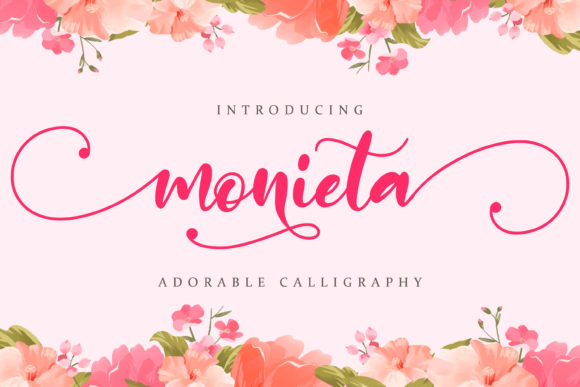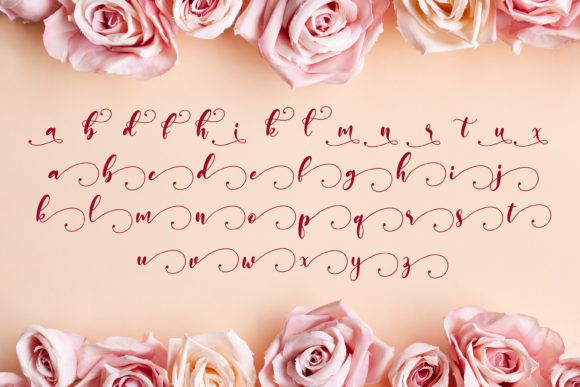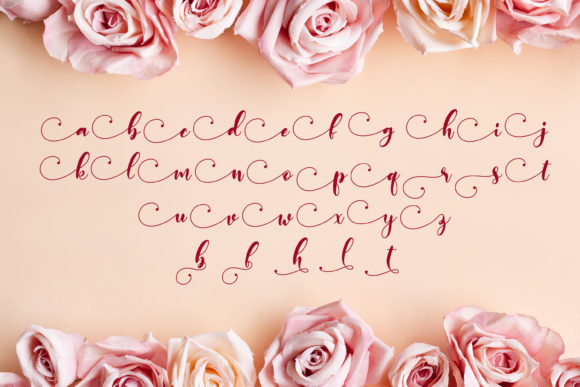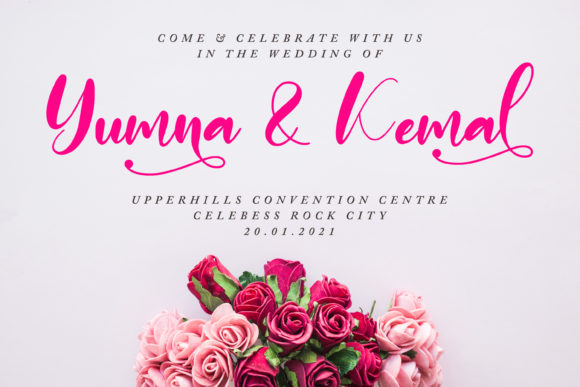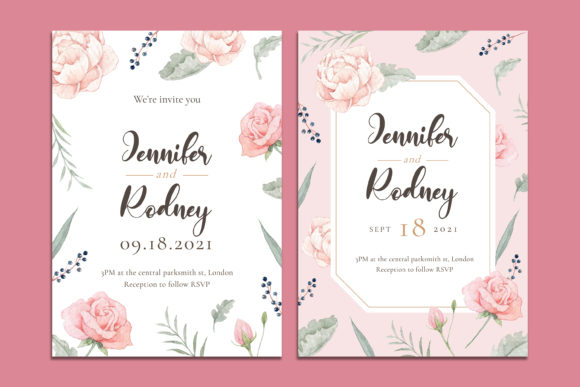
About Monieta Font
Monieta is charming and cute, but also elegant. This versatile sans serif font has a wide range of applications ranging from body text to headlines, and is guaranteed to add a magical touch to your next design.
This font is PUA encoded which means you can access all of the wonderful glyphs and swashes with ease! It also features a wealth of special features including alternate glyphs and ligatures.